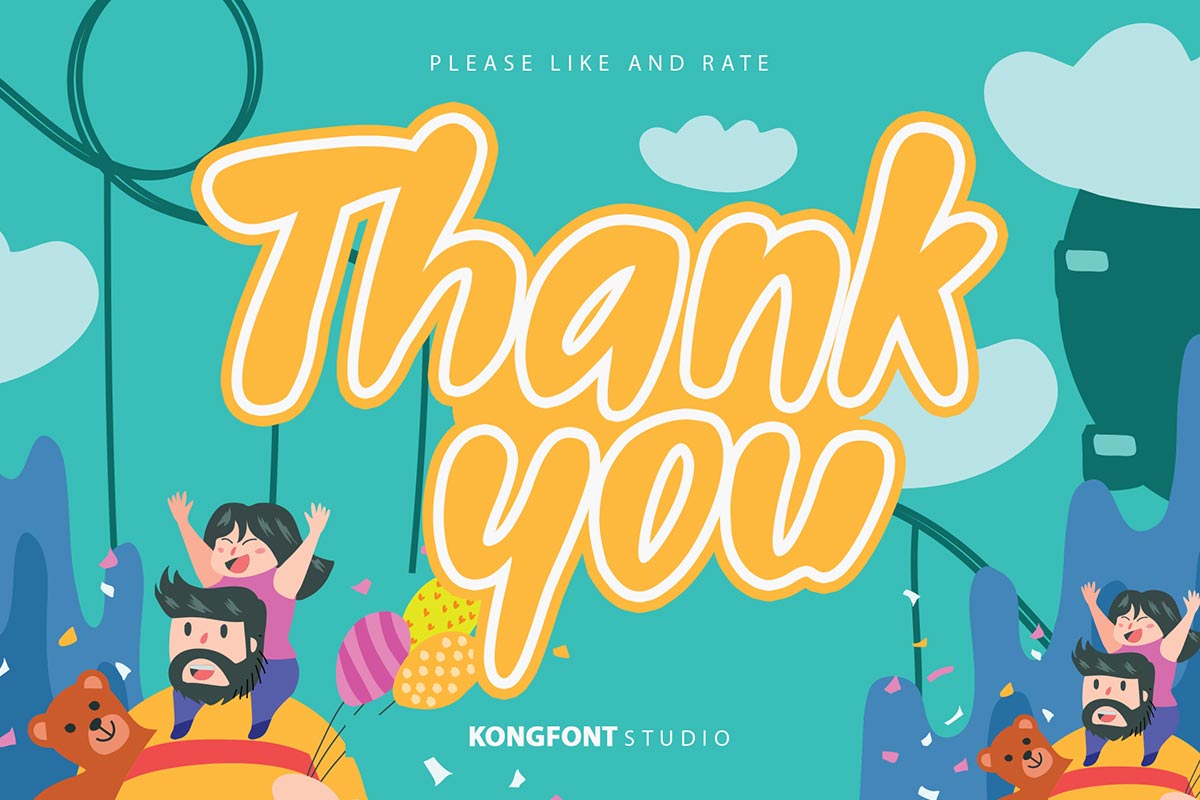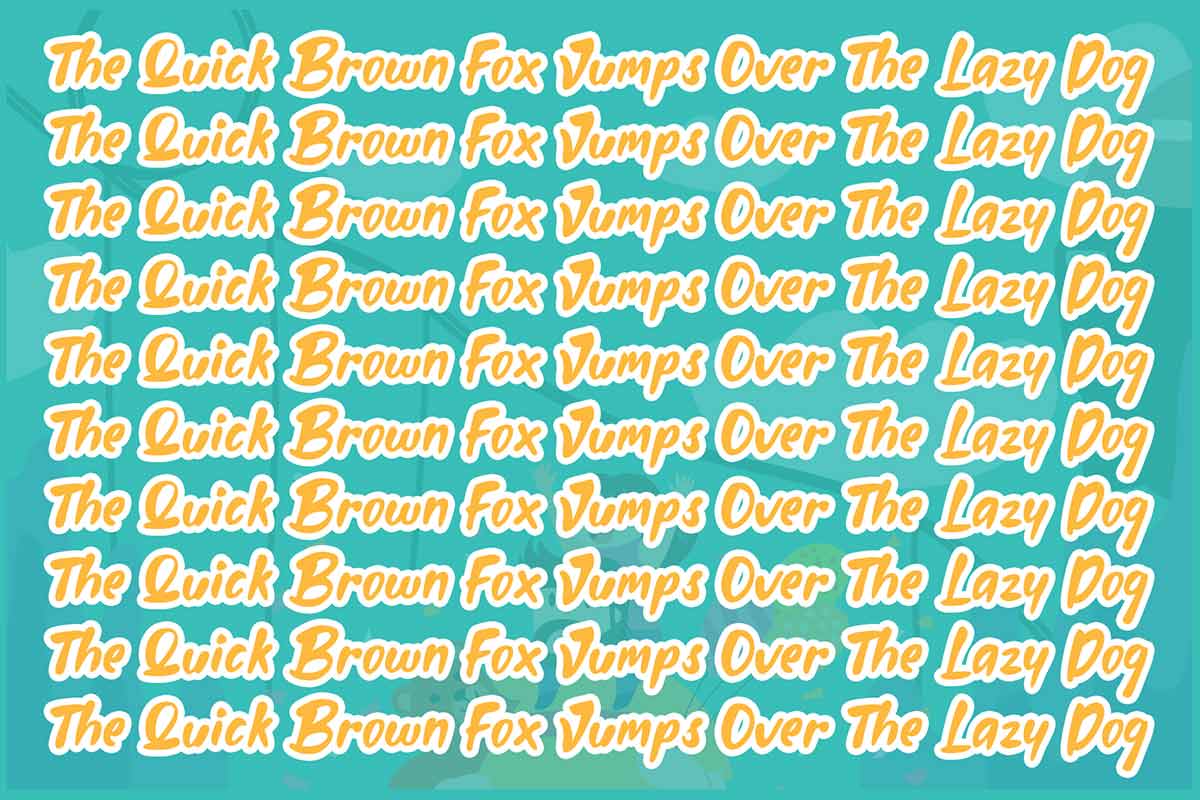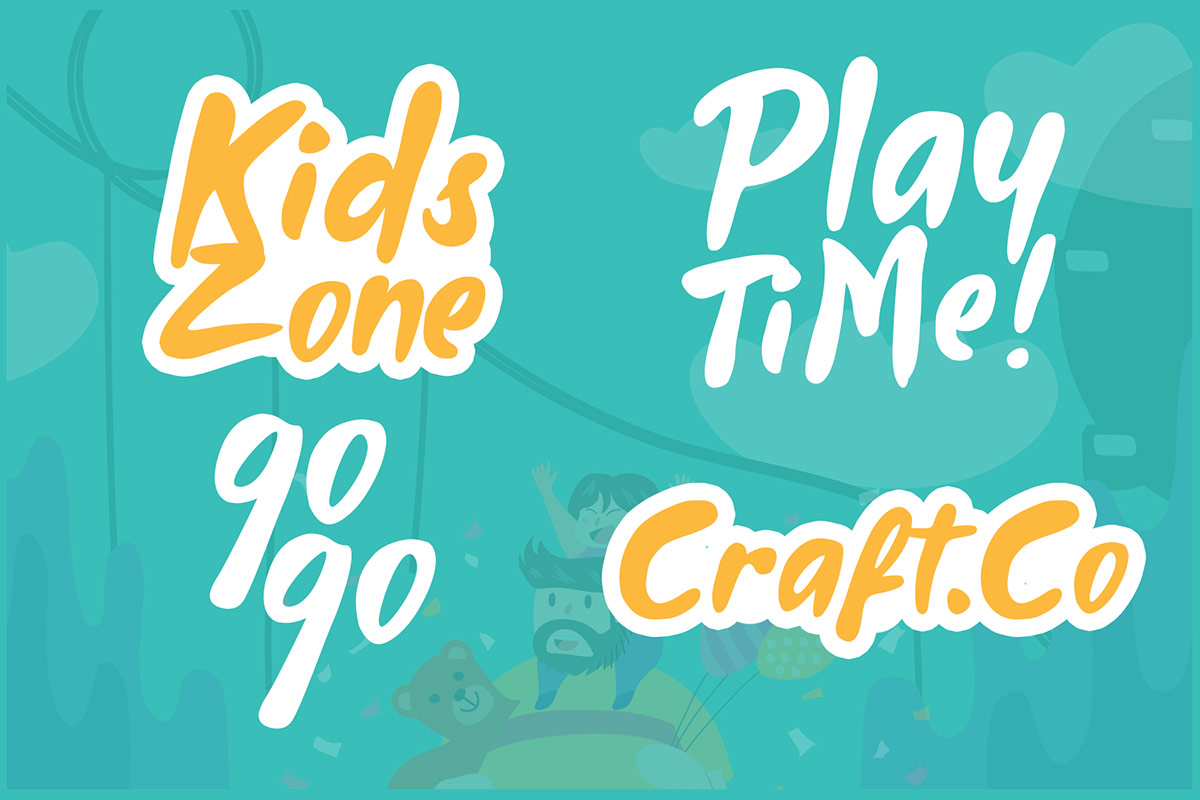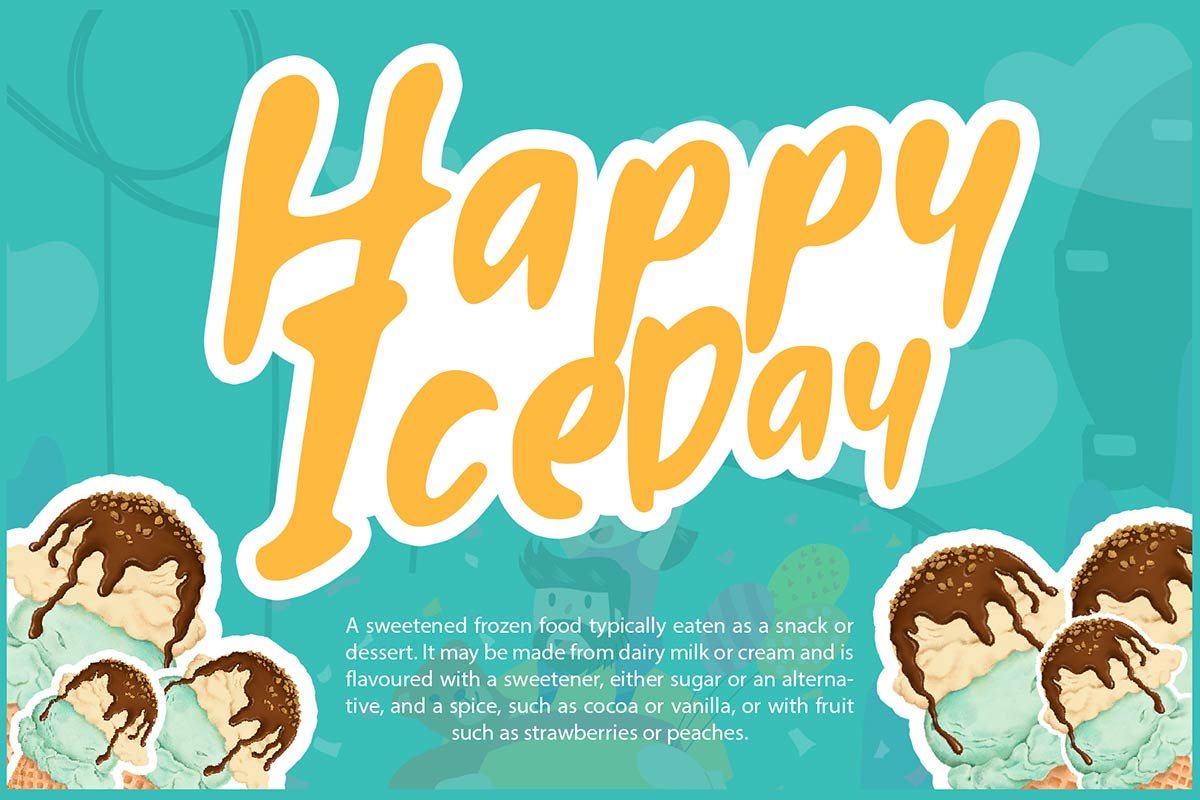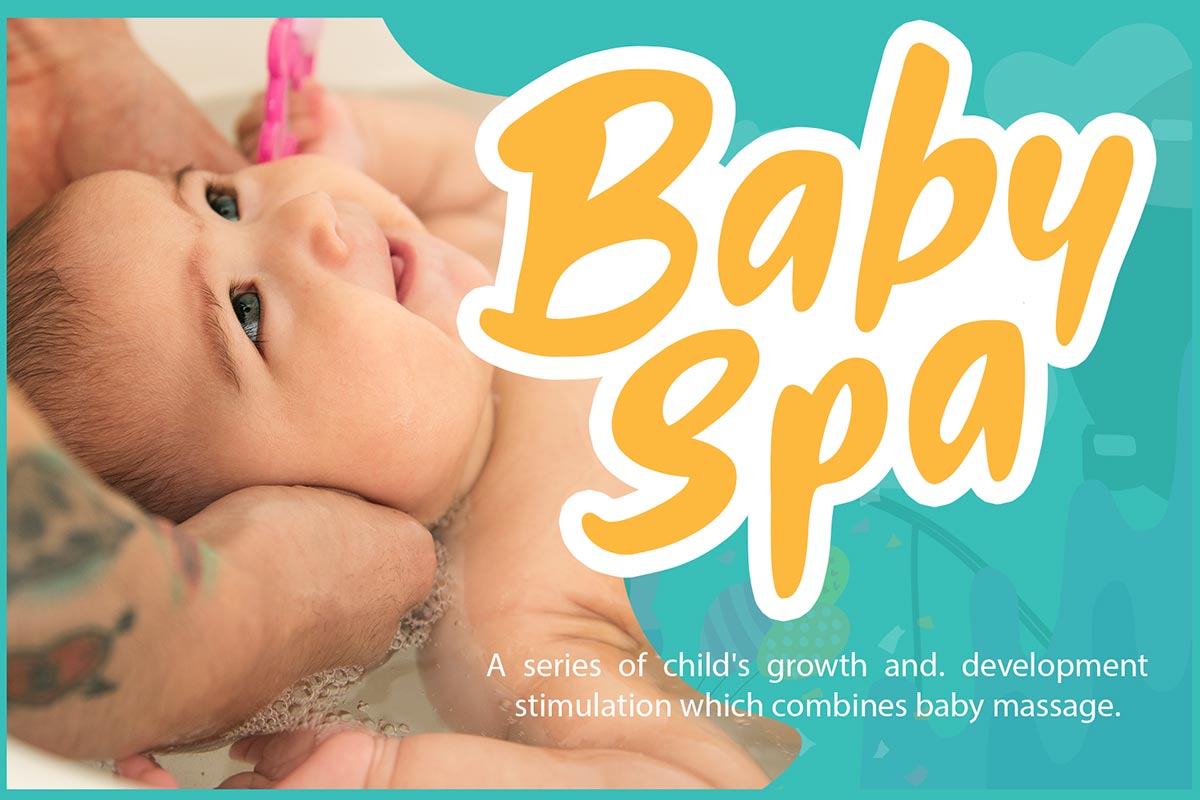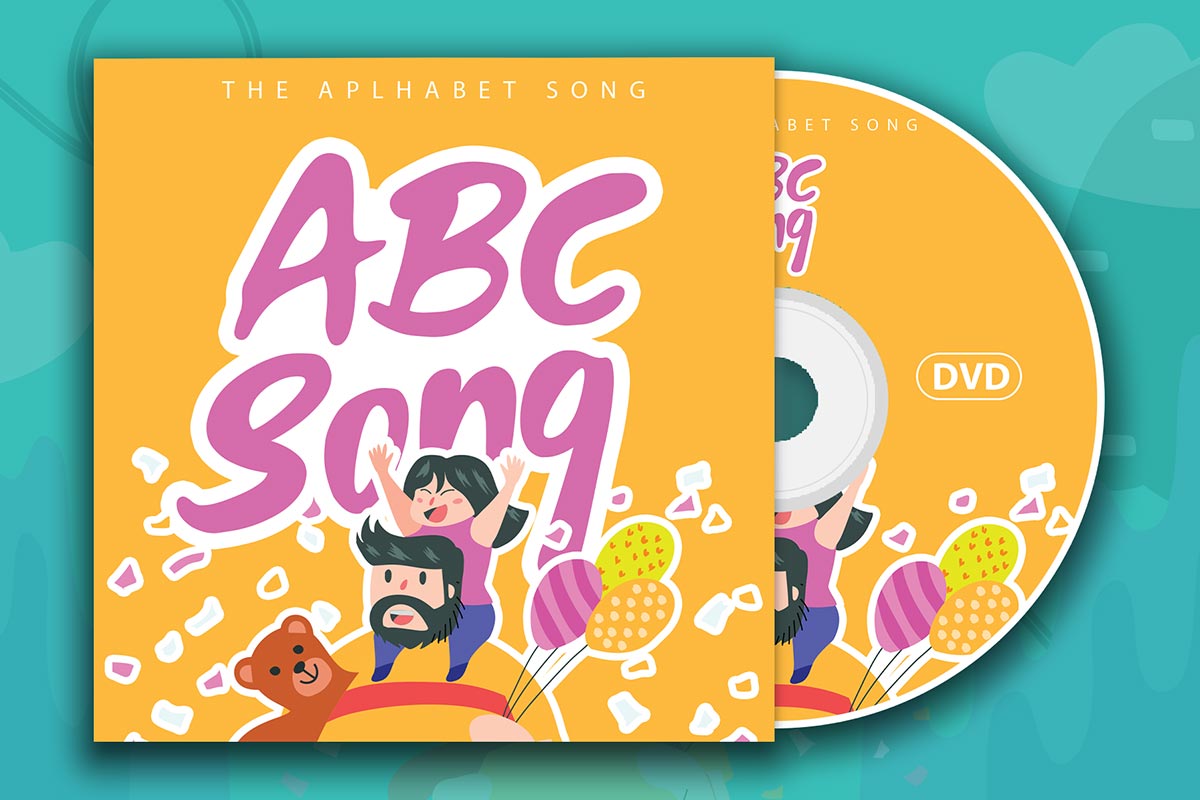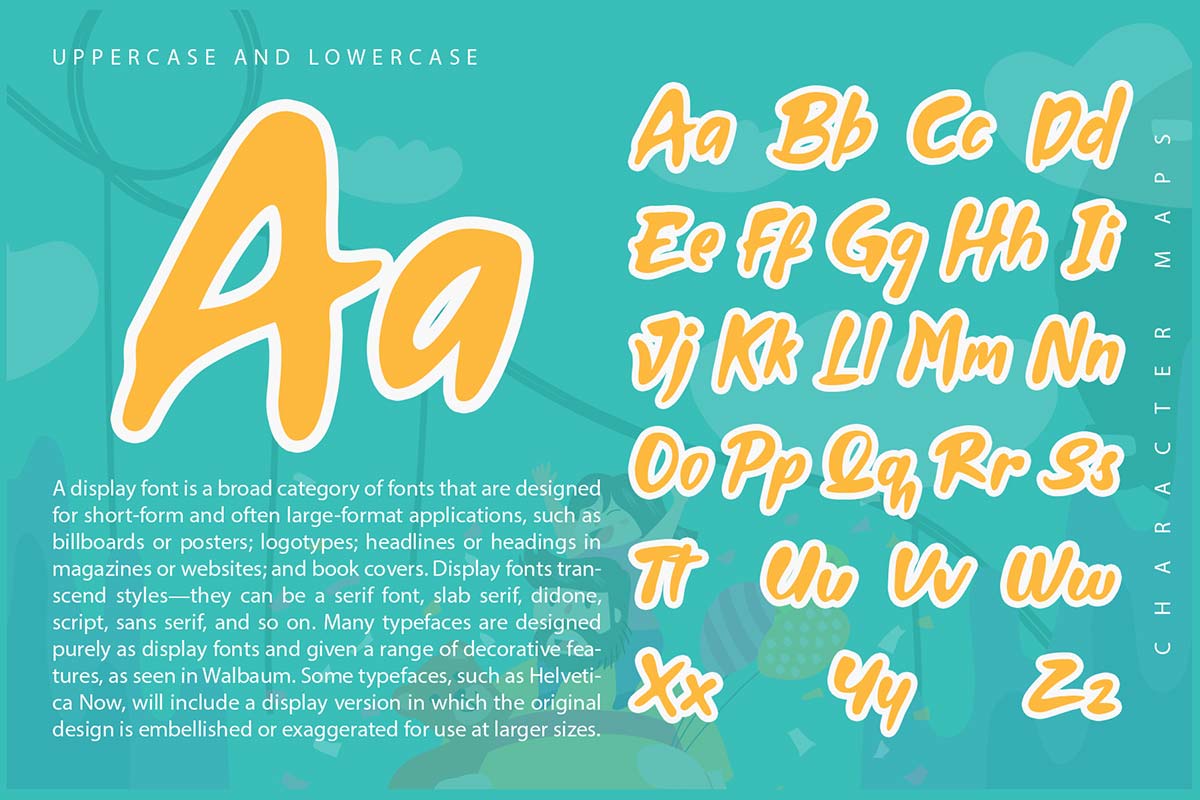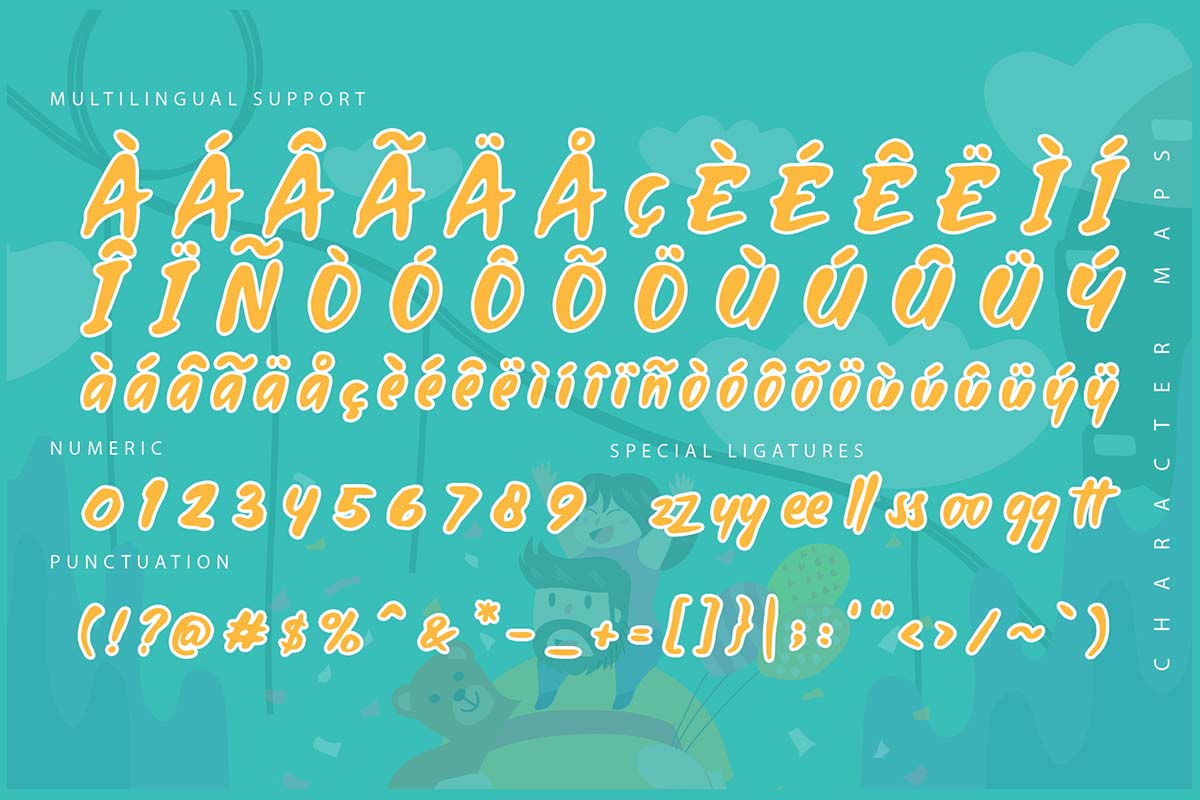
Fleepavlop Display Font A Display typeface, Fleepavlop Modern Handwritten Font features fun and modern design elements. Each letter of this font is easy to distinguish. You can see it clearly from a distance or up close. The letters in this font are simple, upright, and clean. This font is legible. It is suitable for children who are just learning to distinguish letters and learning to read. This typeface is the best font for children's equipment, such as school supplies, children's clothing, and water bottles. Fleepavlop Modern Handwritten Font can use on posters and billboards on the roadside containing promotions or product announcements about children. This font can use on book and magazine covers. This font is best for writing short sentences or words because it will look simple and clean. Fleepavlop Modern Handwritten Font can be used as a digital font. It is suitable for animated videos and can use as a title or subtitle that appears in the intro for writing thank-you notes on the outside of the video. This font can be included in cartoons and fairy tales. Of all the explanations, Fleepavlop Modern Handwritten Font is the best children's font. Our Display font collection is compatible to use as; Figma fonts, Canva fonts, Freepik Fonts, and Adobe Fonts. They also work as Windows Fonts and Apple Fonts. For your social media needs, you can use and install fonts in our collection of Espot & Futuristic fonts to use as Instagram Fonts, Facebook Fonts, and Twitter Fonts.